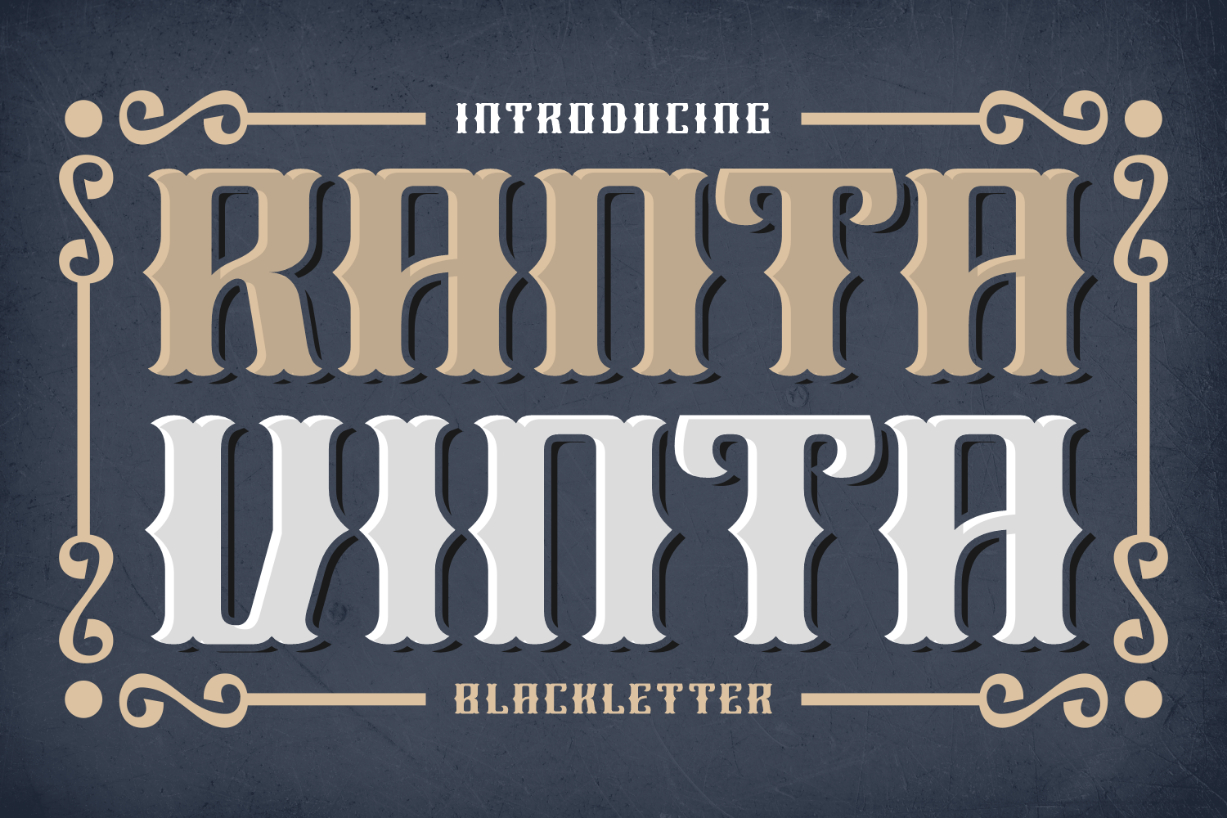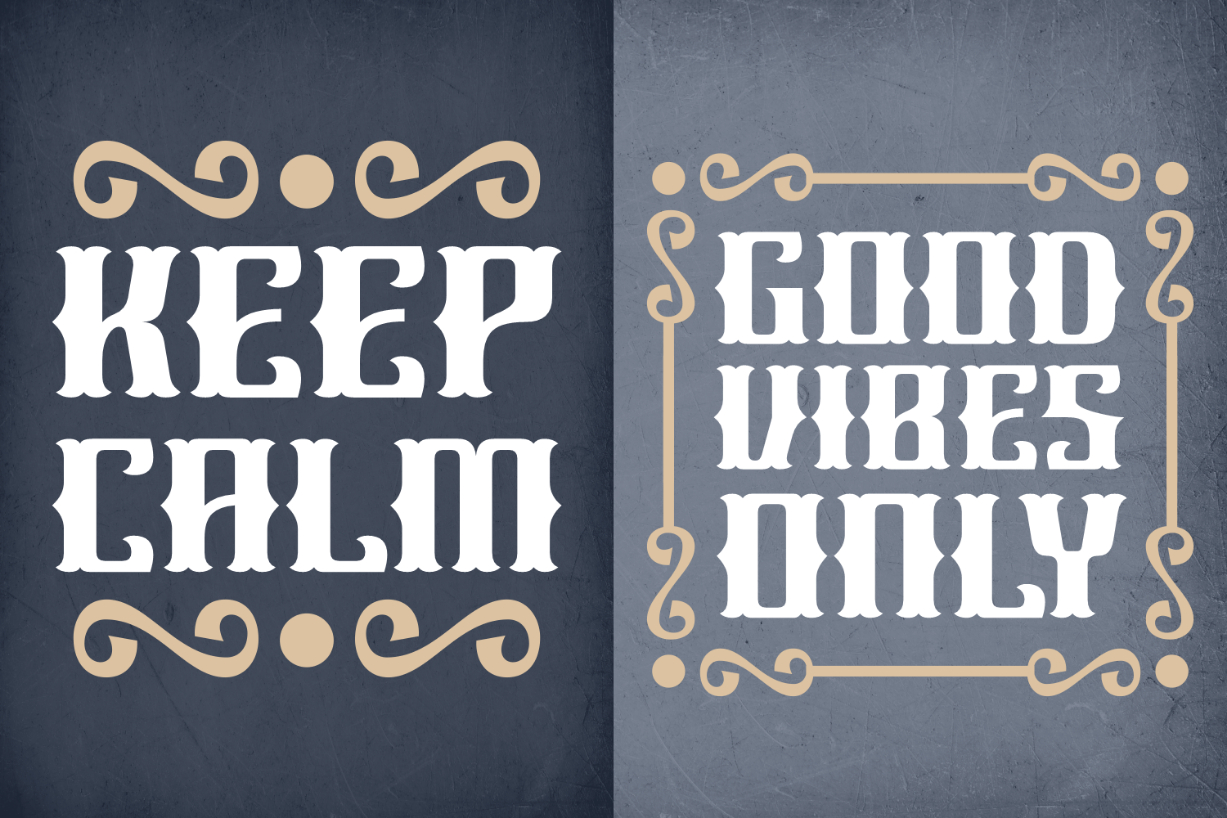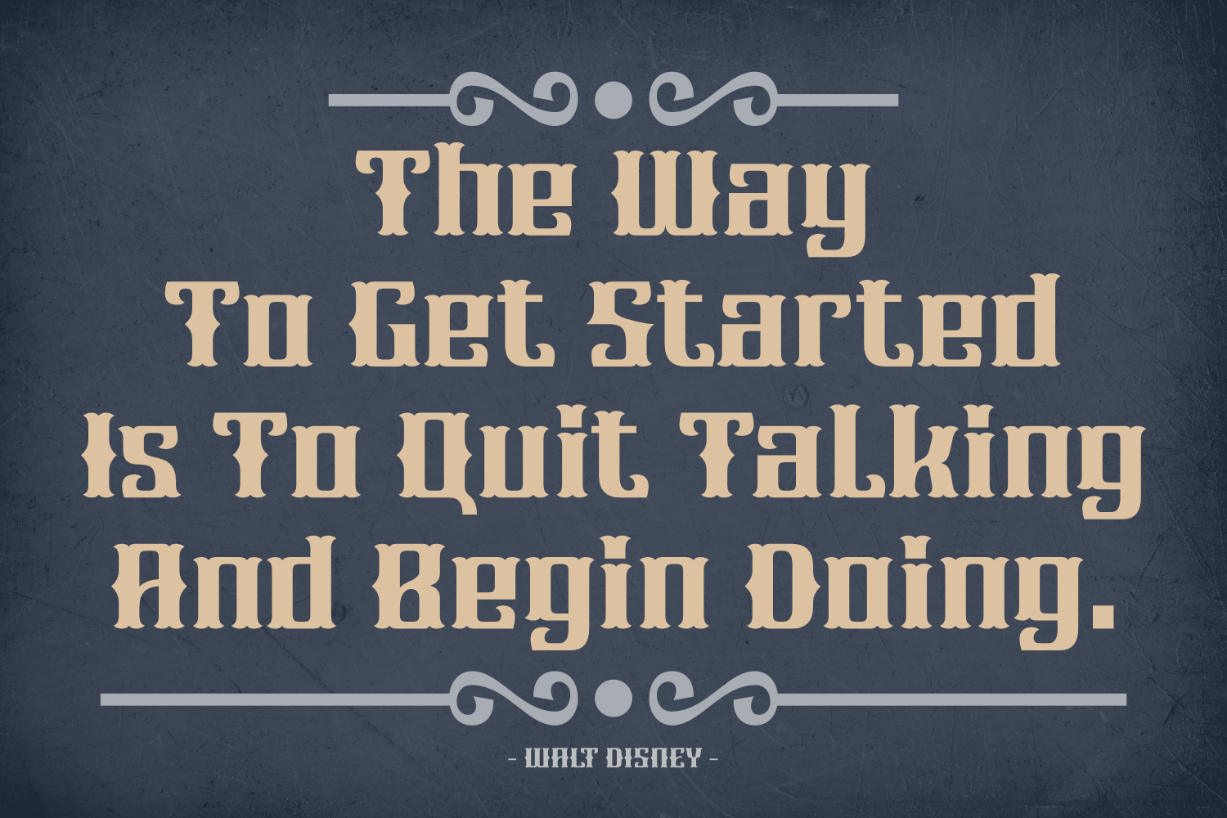
About Ranta Vinta Font
Ranta Vinta is a thick and chunky blackletter font. Stand out from the crowd by using this captivating font to create bold and eye-catching typography! It is the perfect choice for headers, headlines, titles, book covers, advertisements, branding projects, t-shirts, signage, and more.